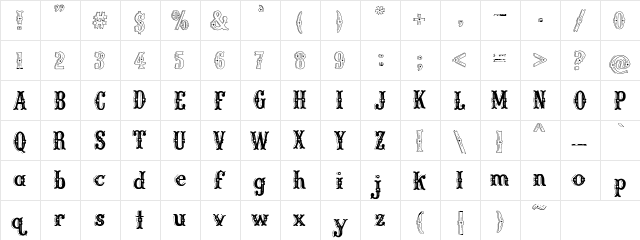
PC Honeyville Fill Regular
Design Context for PC Honeyville Fill Typeface
PC Honeyville Fill is a composed and adaptable typeface that performs quietly and consistently across a wide range of design contexts.